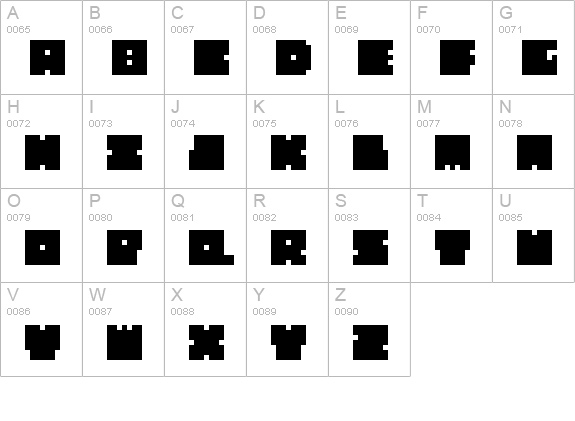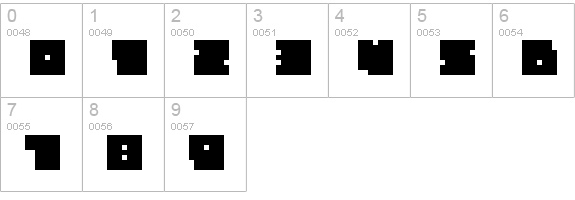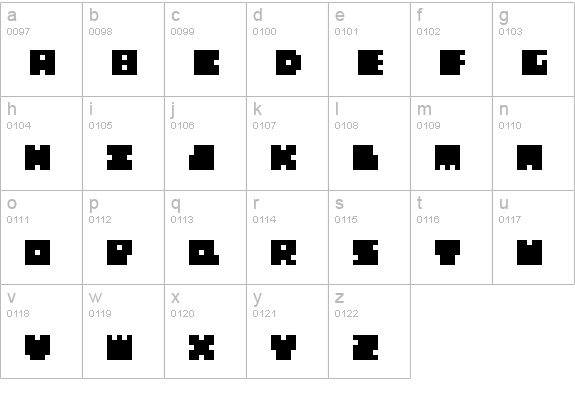
Big Bad Blocks is a free for personal use font in the Modern > Techno category, designed by Darrell Flood. It has been downloaded 31 times and is available for Windows, Mac and Linux.
The Big Bad Blocks font is a bold and impactful typeface that commands attention with its strong, blocky design. Perfect for making a statement or adding a touch of edginess to your projects, this font exudes power and confidence. The sharp angles and thick lines give it a modern and commanding presence, making it ideal for headlines, posters, and branding materials.